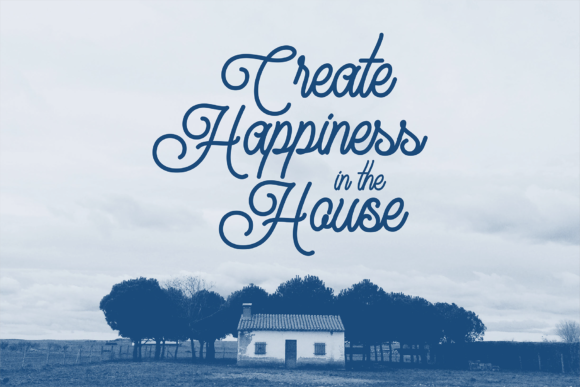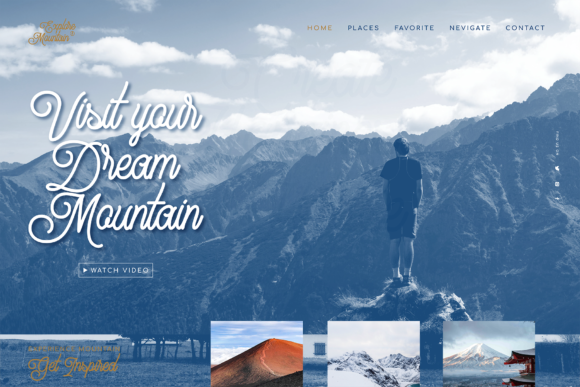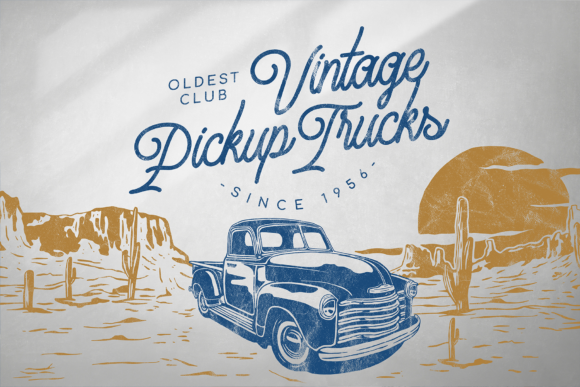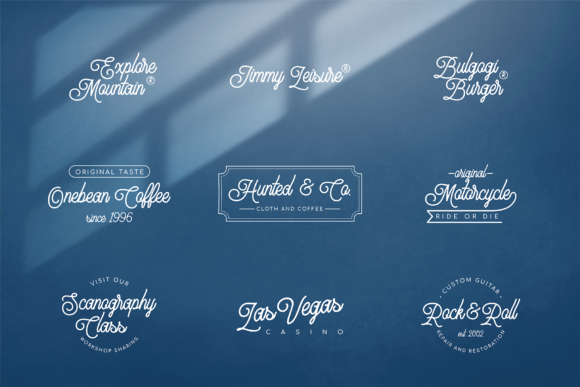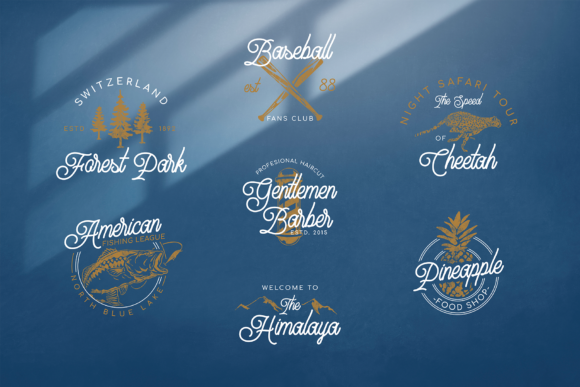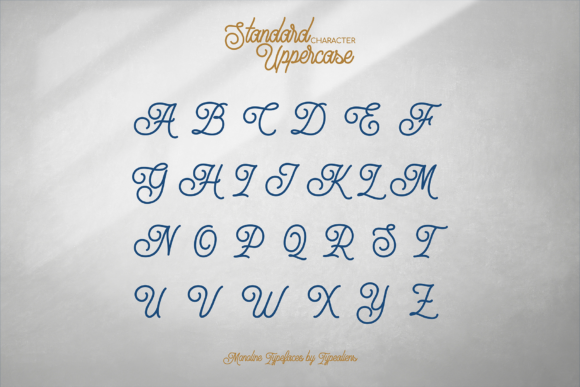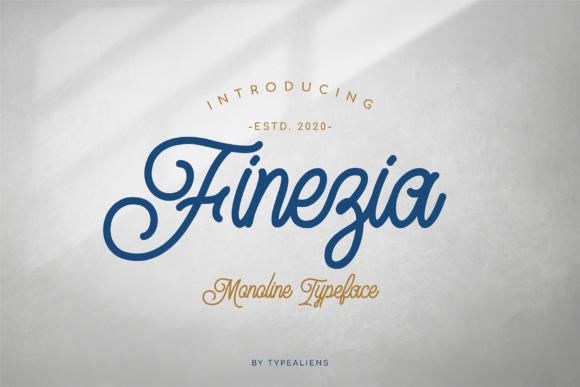
Discover the Charm of Finezia Font: A Script-Monoline Typeface for Every Design Need
In the world of typography, few fonts manage to strike a balance between elegance, readability, and versatility. Finezia Font, a script-monoline typeface, is one such gem that has been making waves in the design community. Its casual charm, coupled with its down-to-earth feel, makes it an incredibly adaptable font suitable for a wide range of design projects. Whether you’re a seasoned designer or a crafty DIY enthusiast, Finezia is sure to become a staple in your typography arsenal.
The Unique Appeal of Finezia
Finezia’s unique appeal lies in its script-monoline design. This style combines the fluidity and elegance of script fonts with the simplicity and cleanliness of monoline typography. The result is a font that exudes a sense of modernity while retaining a warm, approachable feel. Finezia’s characters are designed with a casual flair, making it perfect for projects that require a touch of personality and charm.
One of the standout features of Finezia Font is its incredible versatility. This font can effortlessly adapt to various design contexts, making it an excellent choice for a multitude of projects. Here are just a few ways you can use Finezia:
- Headlines and Titles: Finezia’s elegant and bold appearance makes it an excellent choice for headlines and titles. It can instantly elevate your text, adding a touch of sophistication and style to your design.
- Body Text: Despite its elegant appearance, Finezia remains highly readable, even at smaller font sizes. This makes it suitable for body text, especially in designs where you want to maintain a consistent tone and style throughout.
- Busy Backgrounds: Finezia’s monoline design helps it stand out against busy or complex backgrounds. Its simplicity and clarity ensure that your text remains legible, even in challenging design environments.
- Branding and Logos: The unique charm of Finezia can help your brand stand out. Its casual yet elegant appearance makes it an excellent choice for logos, brand names, and taglines.
Why Designers and Crafters Love Finezia
Designers and crafters alike are drawn to Finezia for several reasons:
- Ease of Use: Finezia is incredibly easy to use, even for those who are new to design. Its clear and legible characters make it simple to work with, reducing the learning curve associated with more complex fonts.
- Customization: Finezia’s monoline design allows for easy customization. You can experiment with different colors, sizes, and styles to create a unique look that suits your project.
- Emotional Connection: Finezia’s casual charm helps create an emotional connection with your audience. Its down-to-earth feel makes your design more approachable and relatable.
Tips for Using Finezia Effectively
To get the most out of Finezia Font, consider the following tips:
- Pair it with Contrasting Fonts: Finezia pairs well with a variety of fonts. Experiment with contrasting fonts to create visual interest and hierarchy in your design.
- Experiment with Colors: Finezia’s monoline design allows it to work well with a range of colors. Don’t be afraid to experiment with different color schemes to find the perfect match for your design.
- Pay Attention to Spacing: As with any font, spacing is crucial when using Finezia. Make sure to adjust the spacing between characters and lines to create a harmonious and readable design.
Finezia Font is a script-monoline typeface that offers a unique blend of elegance, readability, and versatility. Its casual charm makes it an excellent choice for a wide range of design projects, from headlines and titles to body text and branding. Whether you’re a designer or a crafter, Finezia is sure to become a valuable addition to your typography collection. So why not give Finezia a try and discover the difference it can make in your designs?